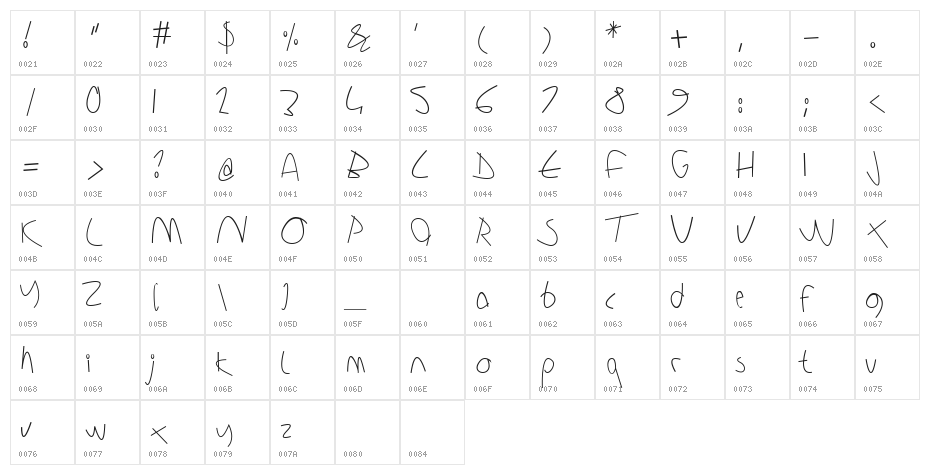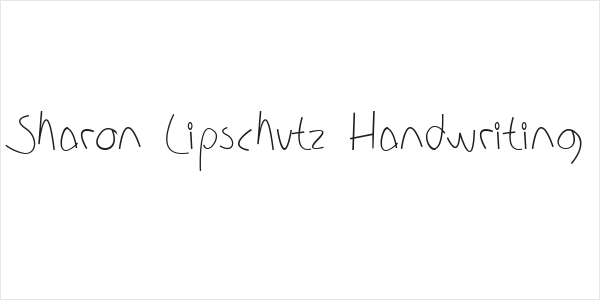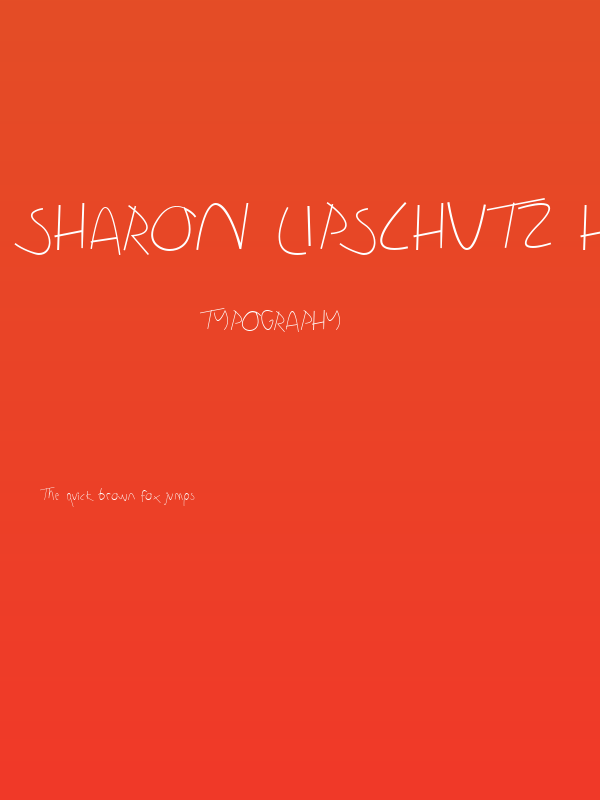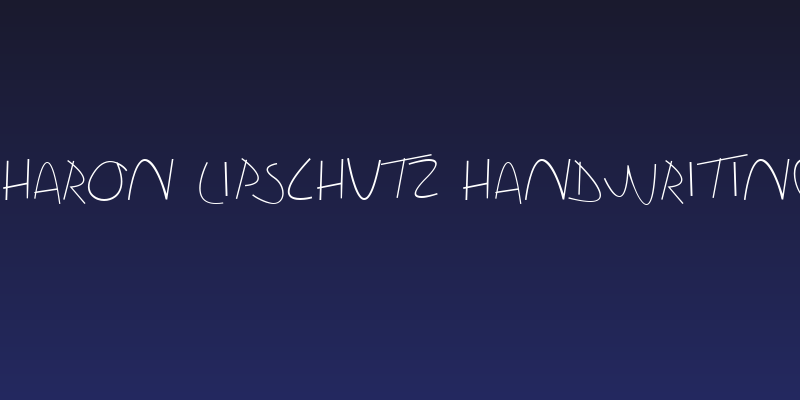
Sharon Lipschutz Handwriting Font
Sharon Lipschutz Handwriting Description
This font exudes a playful and casual handwritten style, characterized by its irregular and organic letterforms. The strokes are uneven, giving it a natural and spontaneous appearance, reminiscent of a personal note or a quick sketch. The uppercase letters are tall and slightly narrow, while the lowercase letters maintain a consistent flow with a slight slant, enhancing the informal feel. The numerals and special characters follow the same whimsical style, ensuring a cohesive look across all elements. This font is perfect for projects that require a personal touch or a creative flair.
| Proposed Projects | Ideal for greeting cards, personal blogs, creative branding, and children's books. |